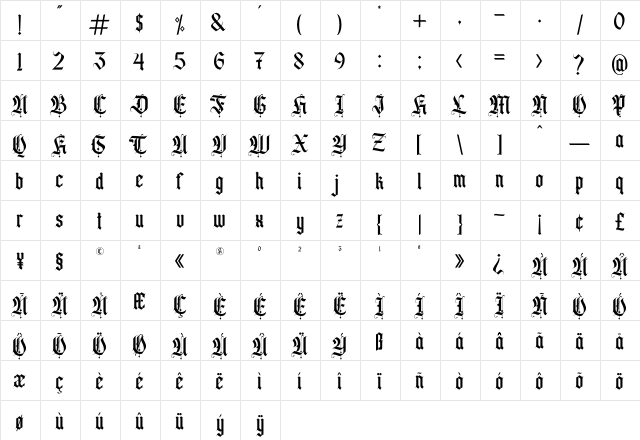
California sun Regular
| Designer | Kong font |
California sun is a composed and adaptable typeface that performs quietly and consistently across a wide range of design contexts.